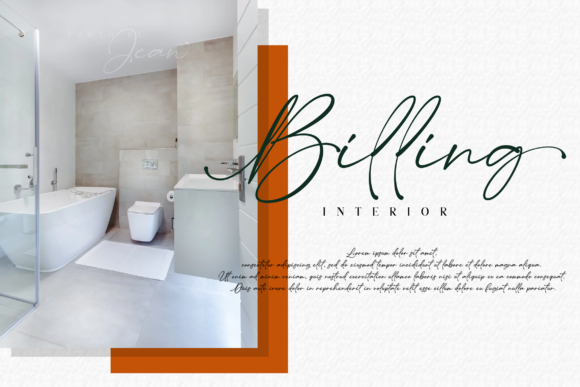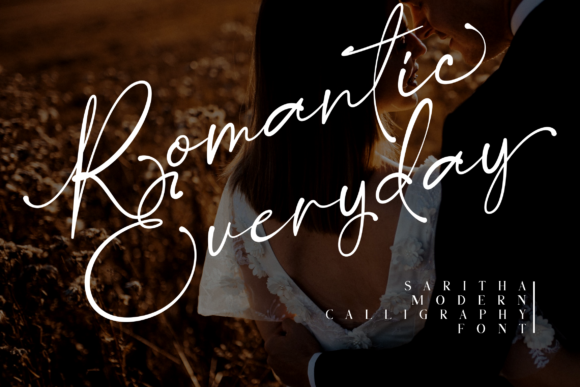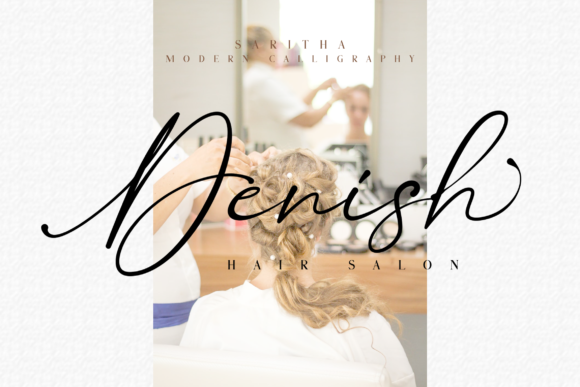
Introduction to Saritha Font
As you sit at your desk, surrounded by half-finished projects and scattered papers, you finally find the perfect moment of inspiration. The creative spark hits, and you envision a beautiful design that will bring your project to life. But, what if you could add an authentic touch to your crafting project in an instant? Enter the Saritha Font, a stunning design resource that will elevate your work to new heights.
With its playful lettering and dynamic swashes, the Saritha Font is a high-quality addition to any designer’s toolkit. Whether you’re working on a creative project or simply need a design element to enhance your work, this font is sure to impress. And the best part? It’s available for free download, making it a valuable resource for designers of all levels.
Key Features of Saritha Font
- High-quality, professional font design ideal for creative projects.
- Unique, elegant design that can add a touch of sophistication to any project.
Honest Review: Saritha Font
I recently stumbled upon the Saritha Font and I’m excited to share my thoughts on it. As a designer, I’m always on the lookout for high-quality design resources that can elevate my creative projects.
Here are some things that work well for the Saritha Font: ✨
- The font is highly versatile and can be used for a wide range of creative projects, from digital designs to print materials.
- The transparent background makes it easy to layer and composite the font with other design elements.
However, there are some limitations to consider: ⚠️
- The font may not be suitable for small text sizes, as the lines can become a bit fuzzy.
- The character set is limited, which may not be ideal for projects that require a wide range of special characters.
Overall, I’m impressed with the Saritha Font. While it may have some limitations, its high quality and versatility make it a great addition to any designer’s toolkit. If you’re looking for a free design resource that can help take your creative project to the next level, the Saritha Font is definitely worth checking out.
Tips for Getting the Most Out of Saritha Font
For the best results, use Saritha Font on a transparent background to make your design stand out. You can also experiment with different font sizes and colors to add visual interest to your project.
Saritha Font is perfect for creative projects such as graphic design, logo creation, and digital art. Its high-quality design and transparent background make it ideal for use in a variety of design applications.